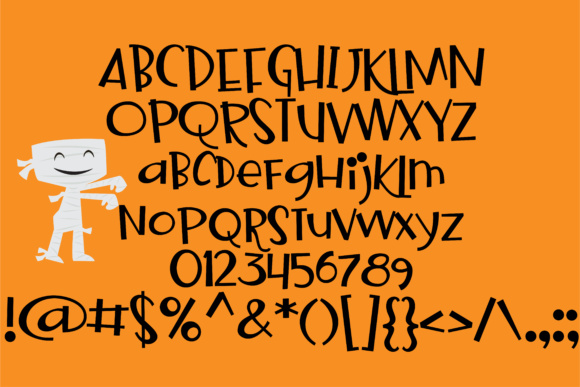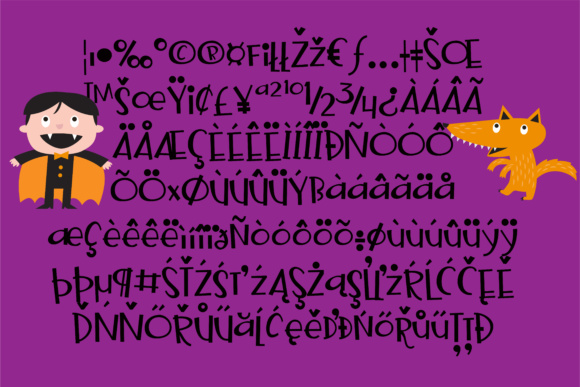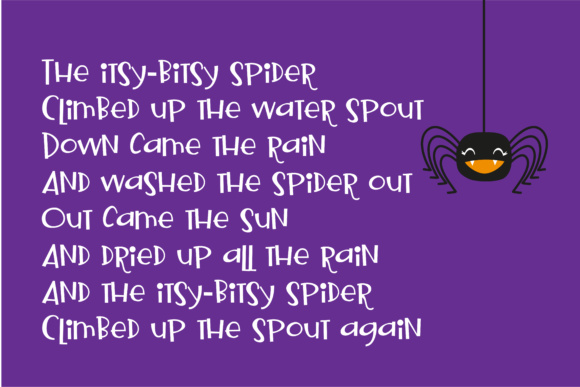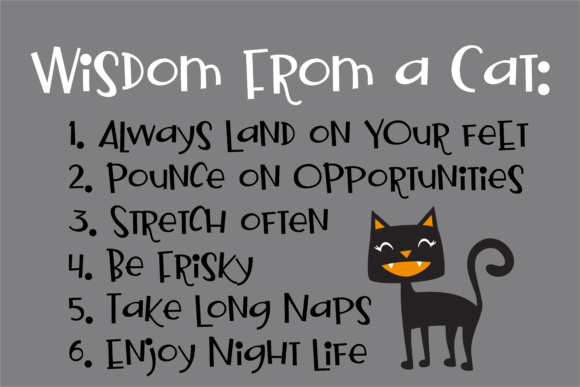
Unleash Your Creativity with Ghostwriter Font: A Whimsical Addition to Your Design Arsenal
Are you a designer, crafter, or DIY enthusiast looking for a font that adds a touch of whimsy and playfulness to your projects? Look no further than the Ghostwriter Font! This charming, bookish font is perfect for creating spooky designs, children’s themed projects, and fun, creative endeavors that require a unique and eye-catching aesthetic.
The Charm of Ghostwriter Font
Ghostwriter Font is a cute and whimsical font that boasts a distinctive, hand-crafted look. Its bookish appearance makes it an excellent choice for designs that require a touch of nostalgia and vintage charm. The font’s playful and adventurous vibe is sure to captivate your audience, whether you’re creating materials for kids or adults who are young at heart.
Ideal for Spooky Designs and More
As its name suggests, Ghostwriter Font is ideal for use in spooky designs, such as Halloween-themed decorations, invitations, and party accessories. However, its versatility extends far beyond the realm of spooky designs. This font is also perfect for:
- Children’s book titles, illustrations, and educational materials
- Fun and playful party invitations, decorations, and accessories
- Body text in creative projects, such as craft tutorials, DIY guides, and blogs
- Signage, posters, and flyers for events, workshops, and classes
Why Choose Ghostwriter Font?
So, what sets Ghostwriter Font apart from other fonts? Here are just a few reasons why designers and crafters love this font:
- Unique and eye-catching: Ghostwriter Font has a distinctive, hand-crafted look that adds a touch of personality to any design.
- Versatile: This font is suitable for a wide range of projects, from spooky designs to children’s themed materials and body text.
- Easy to read: Despite its playful appearance, Ghostwriter Font is easy to read, making it perfect for use in body text and other applications where legibility is important.
- Cute and whimsical: This font is sure to bring a smile to your audience’s faces, making it perfect for designs that require a touch of playfulness and fun.
Tips for Using Ghostwriter Font
To get the most out of Ghostwriter Font, here are a few tips to keep in mind:
- Use it as a headline font: Ghostwriter Font is perfect for use as a headline font, where its playful and eye-catching appearance can really shine.
- Pair it with complementary fonts: For body text, try pairing Ghostwriter Font with a clean, sans-serif font to create a nice contrast.
- Experiment with colors: Ghostwriter Font looks great in a range of colors, from bright and bold to pastel and muted.
- Have fun: Most importantly, have fun with Ghostwriter Font! Its playful and whimsical nature makes it the perfect choice for designers and crafters who want to add a touch of personality to their projects.
In conclusion, Ghostwriter Font is a versatile and charming addition to any design arsenal. Its unique, hand-crafted look and playful vibe make it perfect for a wide range of projects, from spooky designs to children’s themed materials and body text. Whether you’re a designer, crafter, or DIY enthusiast, Ghostwriter Font is sure to inspire your creativity and bring a touch of whimsy to your projects.